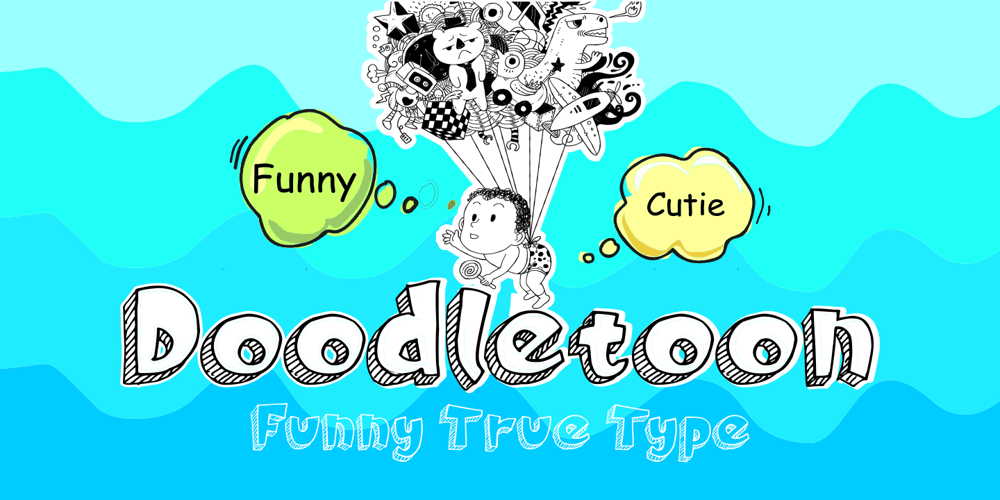
Doodletoon Pencil Font Family was designed by Ahmad Zulfikar Ali and published by ZetDesign. Doodletoon Pencil contains 1 styles and family package options. Doodletoon is a comic-style sans serif font with a unique feel! It will add a whimsical twist to any design project.Compatibility Windows Apple/Mac Linux Cricut Silhouette Other cutting machines